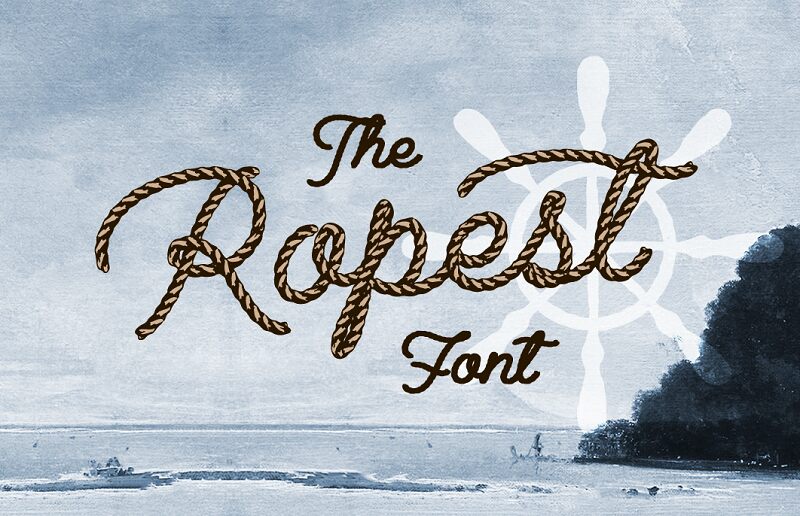
Ropest font by Mans Greback is a decorative display typeface with a unique rope-like texture. Capturing a nautical or western theme, it twists like a lasso of the Wild West, creating extraordinary visual interest. Its textured appearance makes it stand out as an ornamental script that adds intriguing detail to any project.
Perfect as headings and page decoration on invitations, posters, packaging designs, clothing items, logotypes, help files, websites & apps (desktop and mobile). It’s free and would look great even when used in magazines & book covers or printed on any other media.